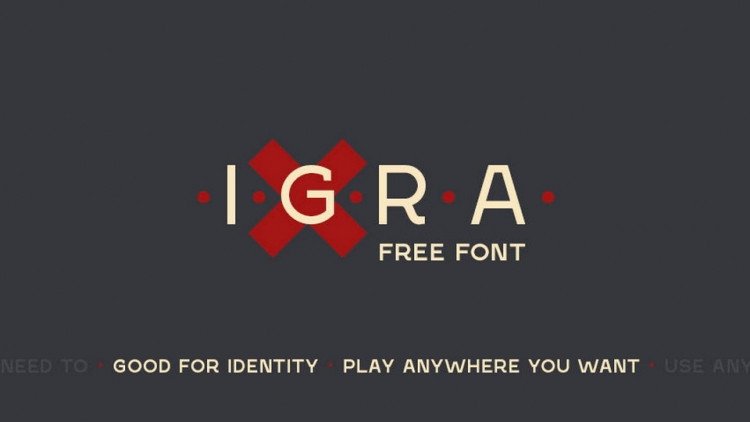
Igra Sans Font
Igra Sans Font is a geometric sans serif typeface with a strong personality. It contains a complete glyph set, including small capitals, ligatures and extended language support.
Igra Sans is ideal for branding identity, headlines, posters, etc…